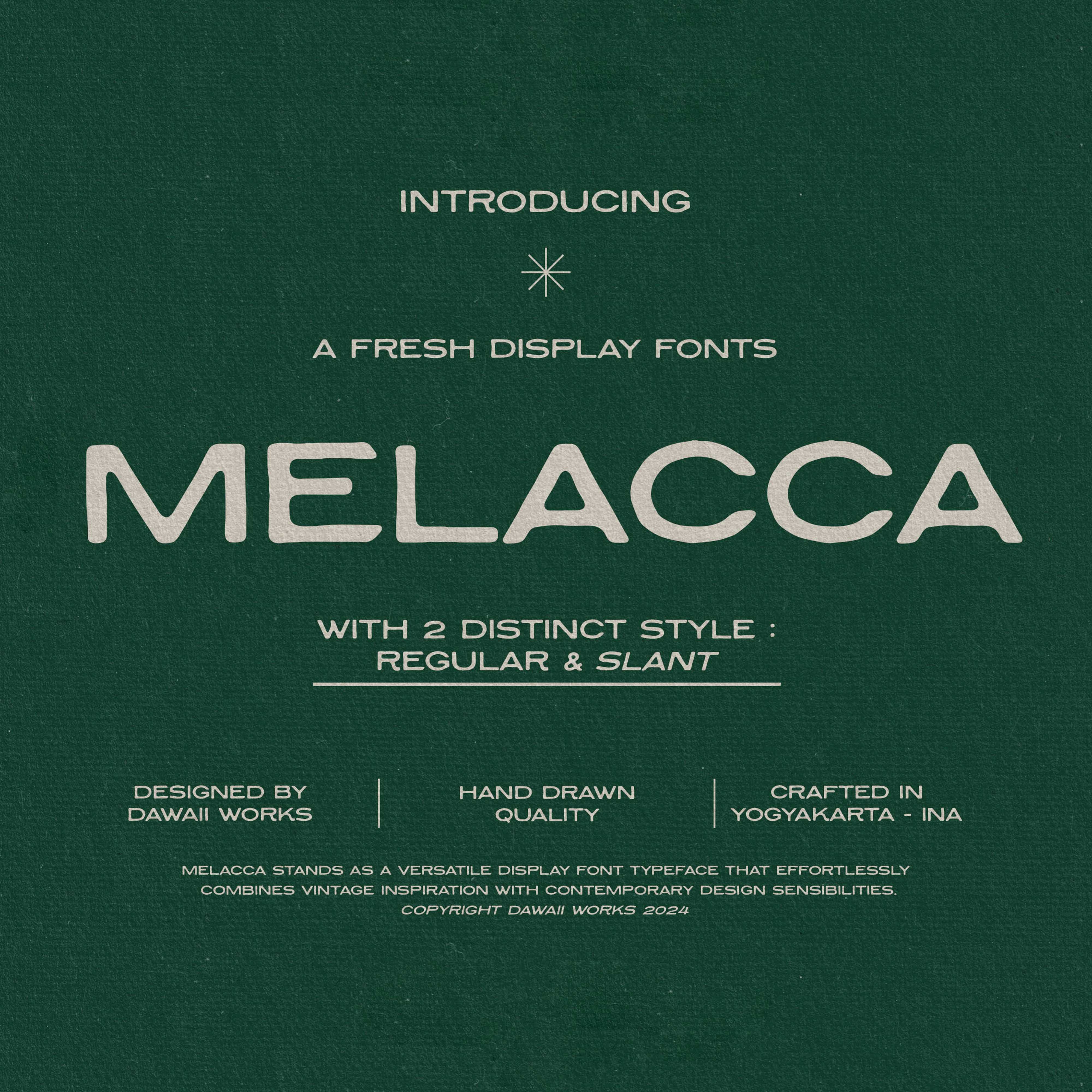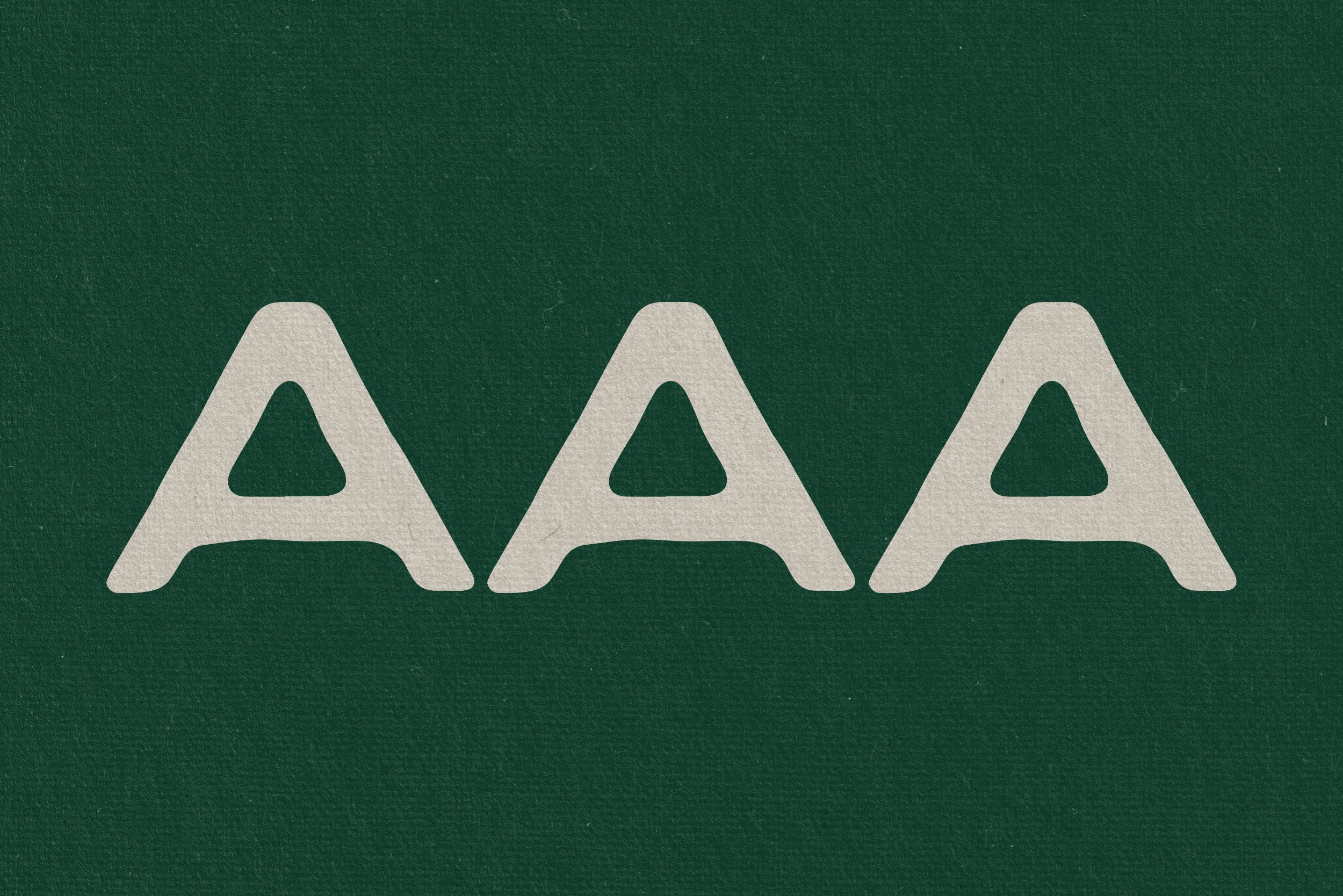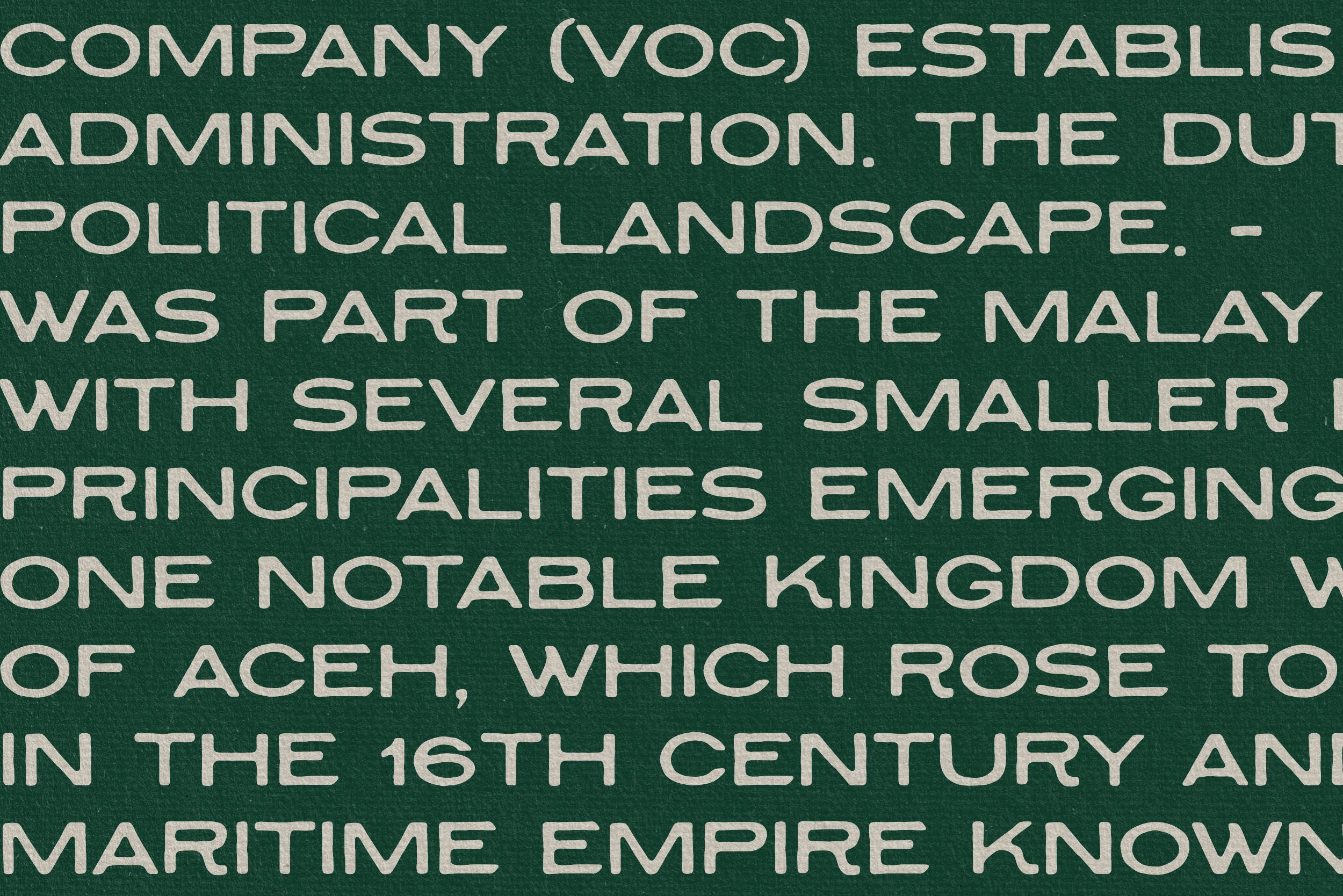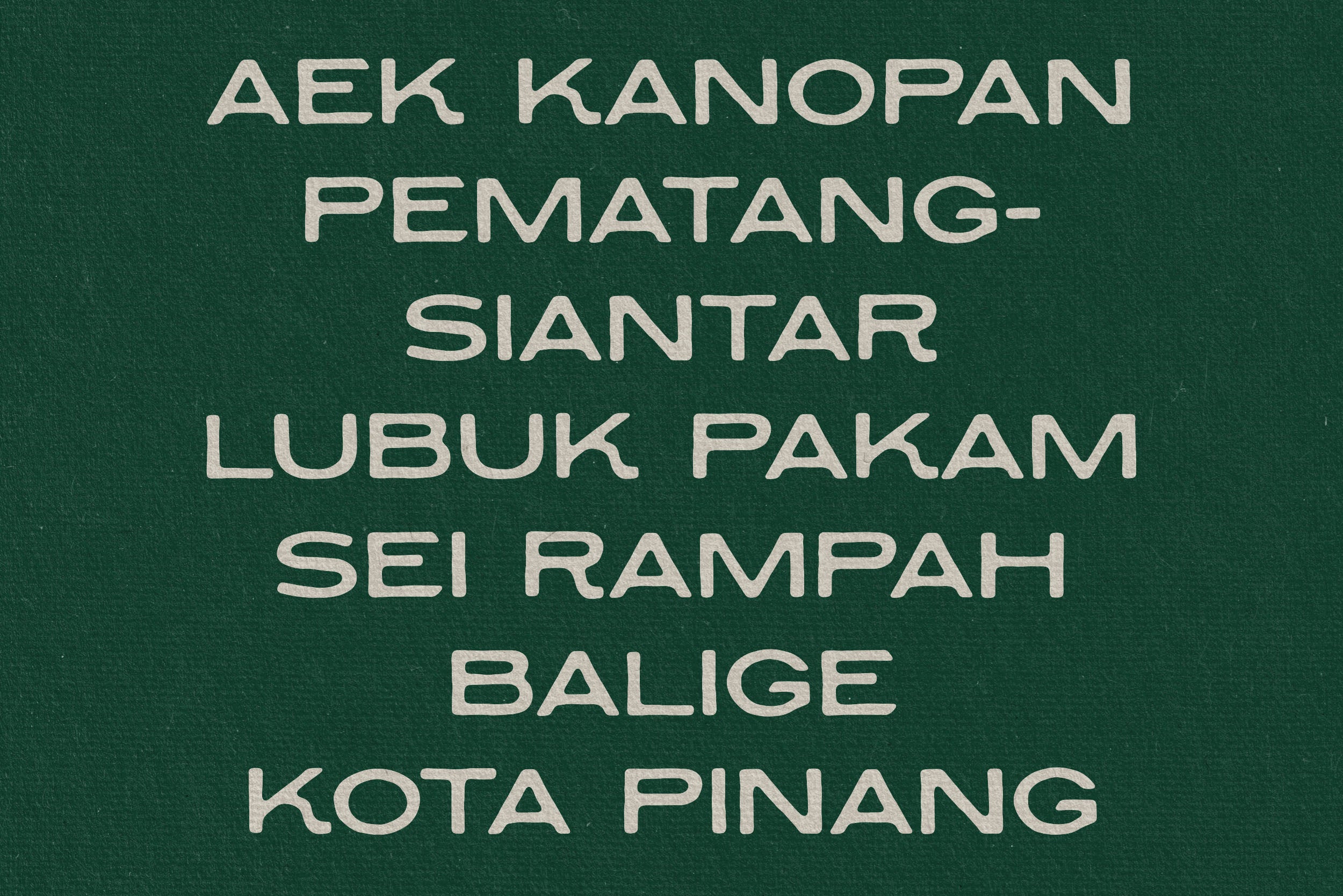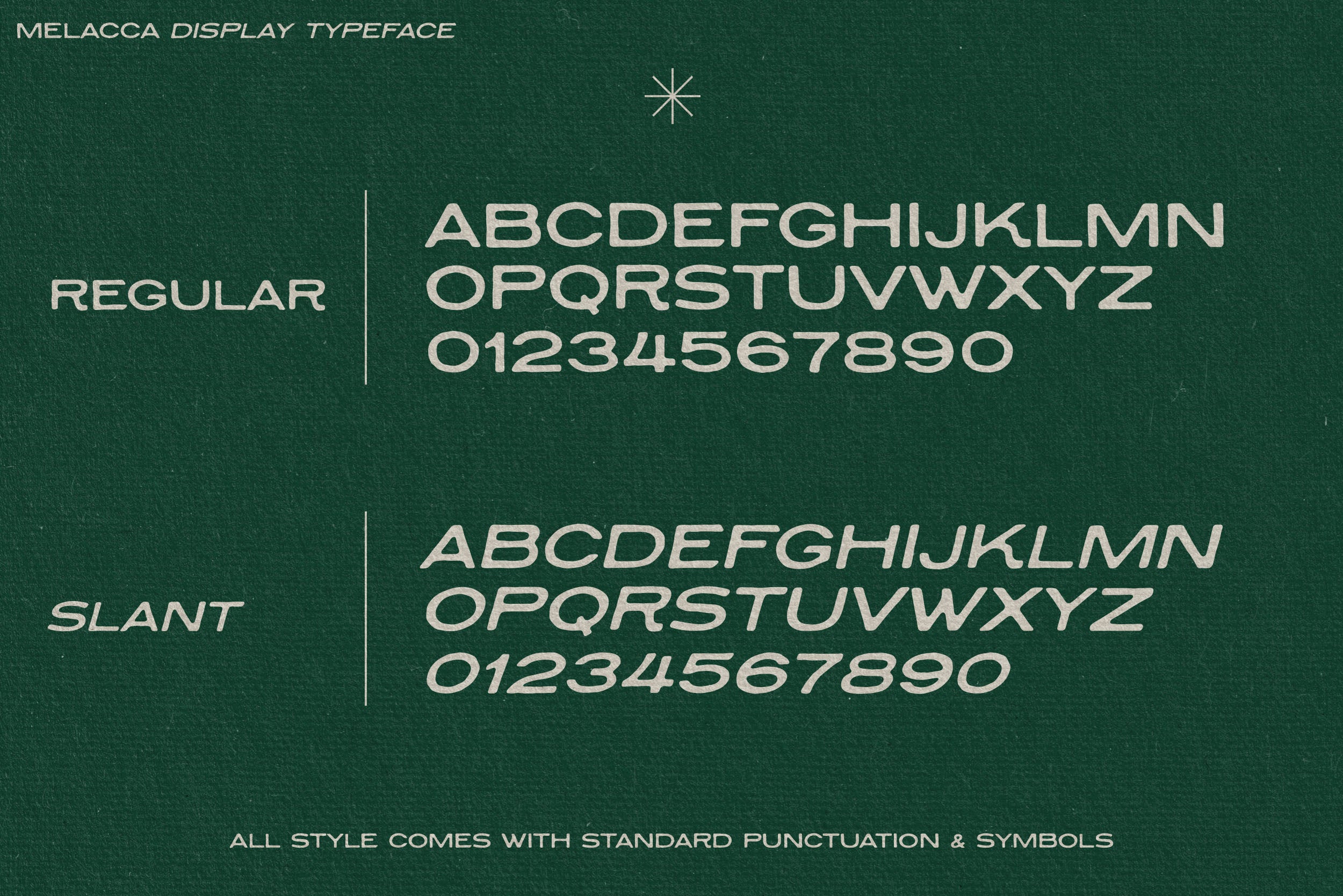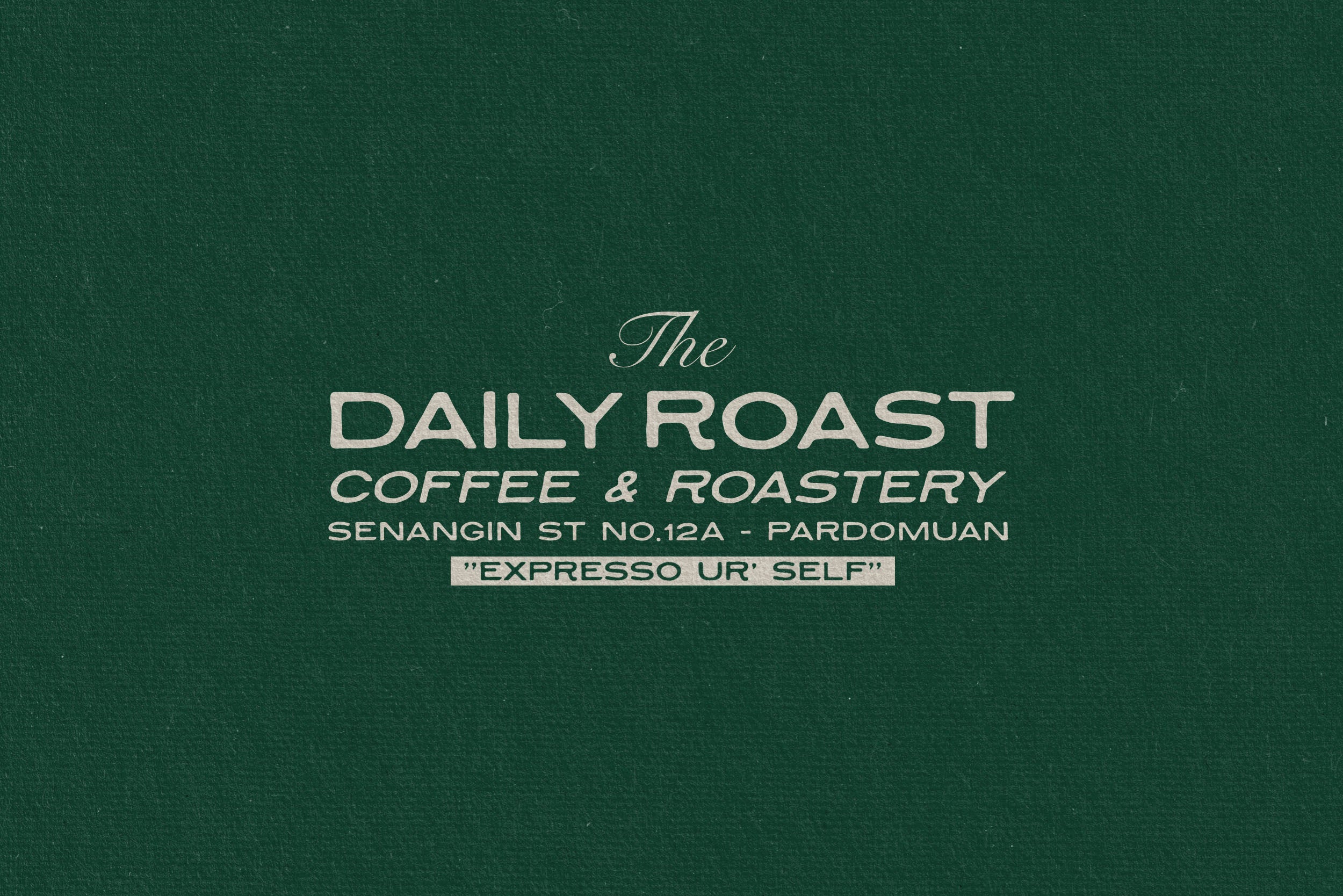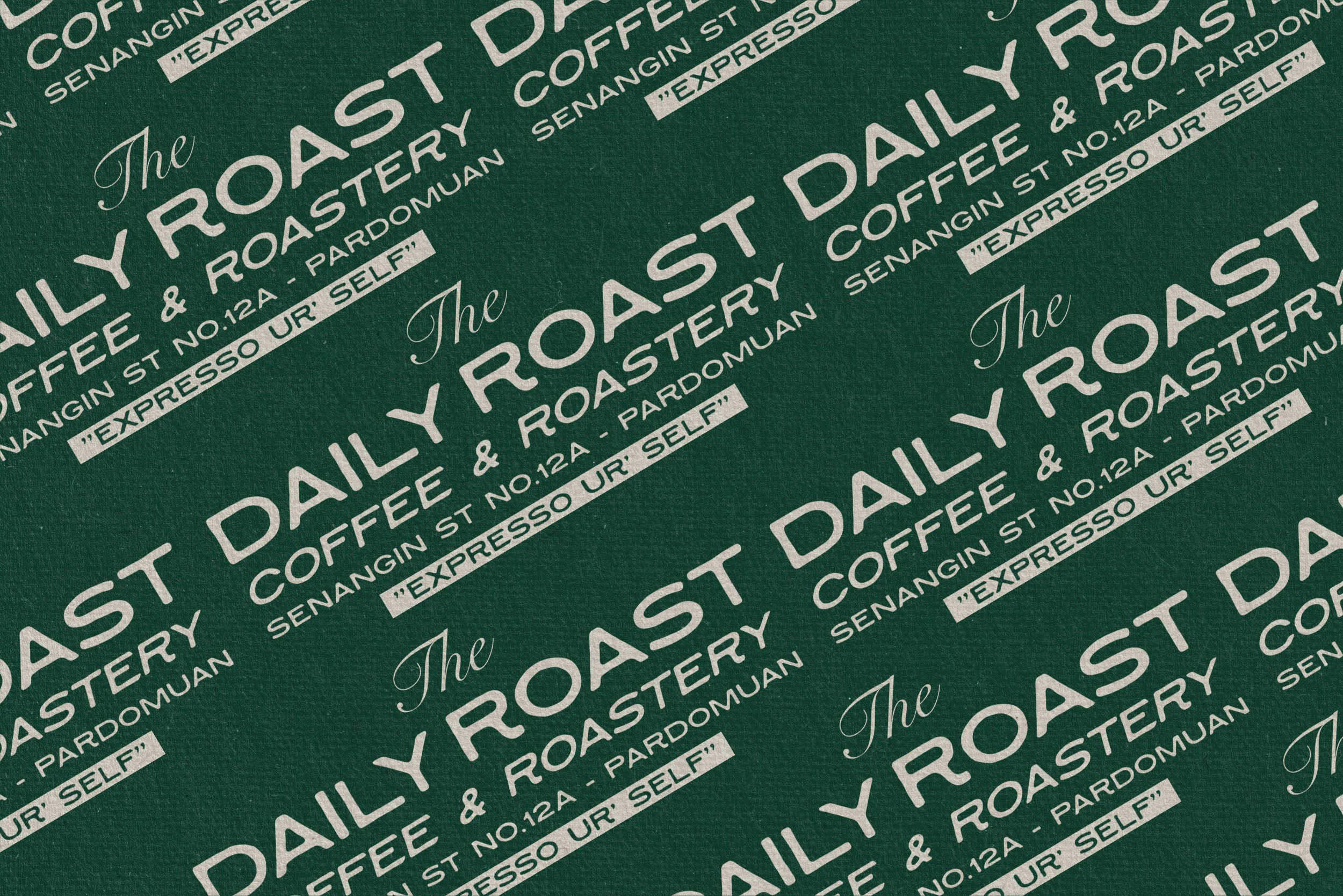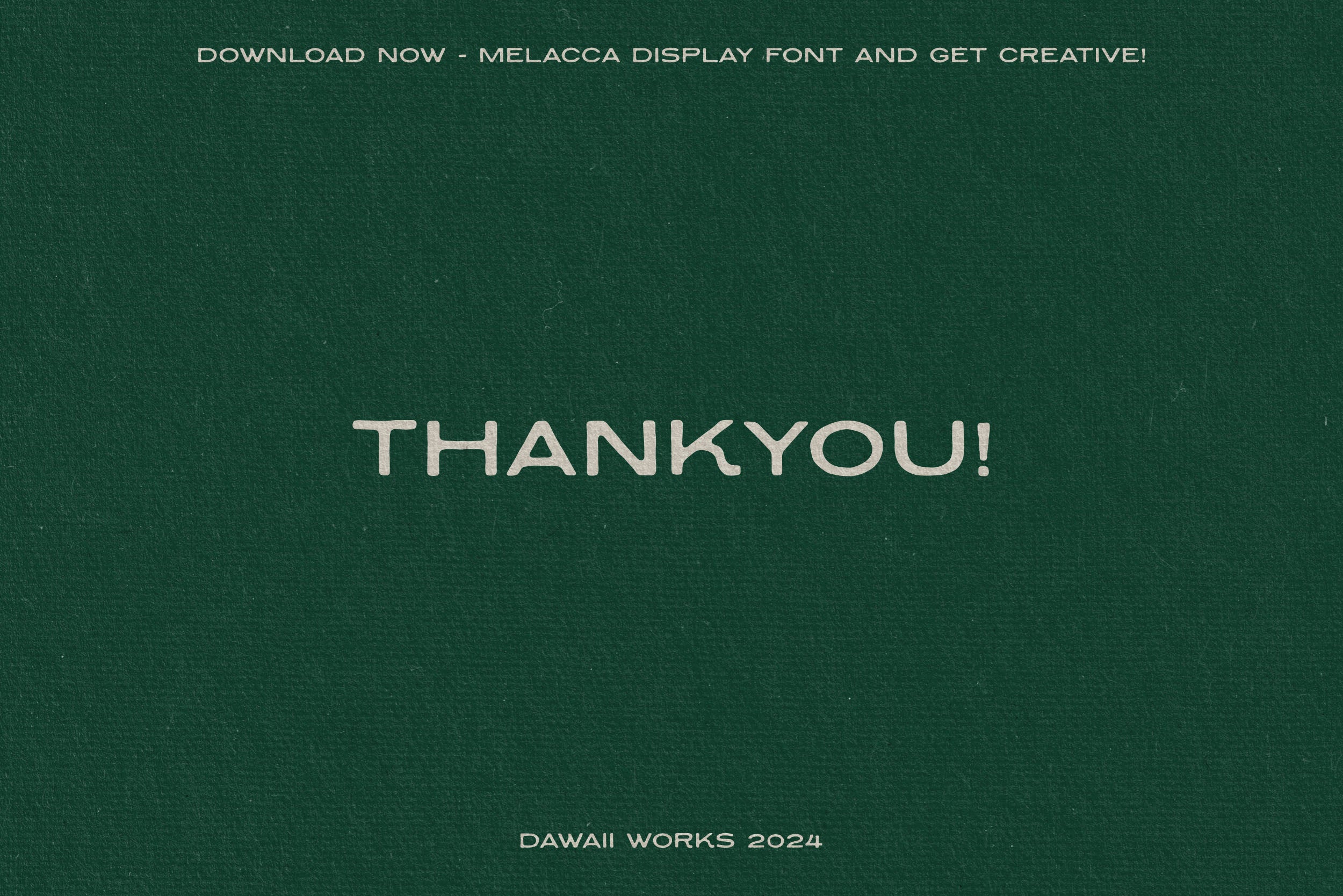
Melacca Typeface
Melacca is a charming new font that draws inspiration from vintage signage and ephemera books, blending nostalgia with contemporary design. With two styles to choose from—regular and slant— Melacca offers versatility for a variety of creative projects. Its distinctive letterforms capture the essence of classic typography while adding a modern twist, making it ideal for branding, packaging, posters, and more.
Embrace the timeless appeal of Melacca to evoke a sense of authenticity and character in your designs.
Melacca Typeface is a versatile font inspired by vintage signage, available in two styles: regular and slant. Its distinctive letterforms combine classic typography with a modern design, suitable for various creative projects.